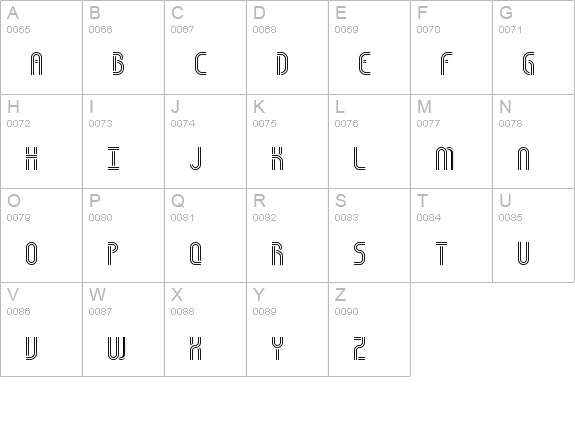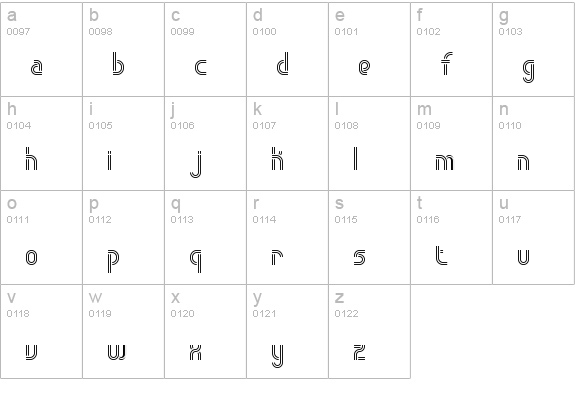
Obstacle Lines BRK Font Details
Obstacle Lines BRK font is a modern and edgy typeface that adds a touch of creativity and uniqueness to any design project. With its bold and angular lines, this font exudes a sense of strength and resilience, making it perfect for conveying a strong and impactful message. Whether used for headlines, posters, or logos, Obstacle Lines BRK font commands attention and leaves a lasting impression. The best part about Obstacle Lines BRK font is that it is completely free to download at FontsMarket.com. This means that you can easily access and use this striking font in your projects without any cost. Don't miss out on the opportunity to enhance your designs with the bold and dynamic look of Obstacle Lines BRK font. Download it now and let your creativity shine!